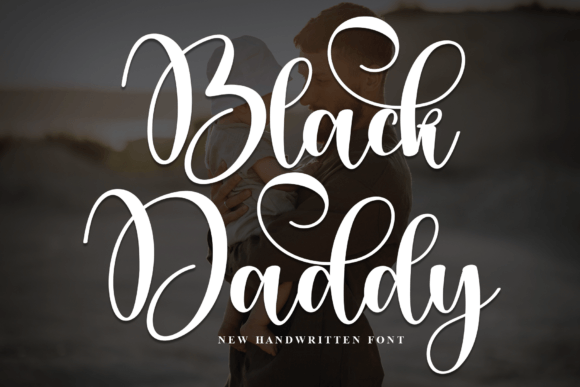
The Ultimate Guide to Black Daddy Font: Elevate Your Designs with Timeless Elegance
I’ll never forget the design project that made me fall in love with the Black Daddy font. I was working on a branding project for a luxury boutique, and I needed a font that exuded sophistication and elegance. After hours of scouring font libraries and testing various options, I stumbled upon Black Daddy. Its unique, handwritten charm instantly captured my attention, and I knew I had found the perfect fit. In this article, I’ll share my experience with Black Daddy, its features, and how to make the most of this stunning font.
An Honest Review of Black Daddy Font
What I Love About Black Daddy ✨
- 💫 Unique and beautiful touch: Every letter has a distinct character that adds a personal touch to your designs.
- ✅ Timeless elegance: Black Daddy’s classic style ensures your designs will remain stylish for years to come.
- 🎨 Versatility: This font is perfect for creating eye-catching logos, branding, quotes, and more.
- 💖 Handwritten charm: Black Daddy’s handwritten feel adds a touch of warmth and personality to your designs.
While Black Daddy is an exceptional font, there are a few things to keep in mind:
- 🤔 Limited availability: Black Daddy might not be as widely available as other fonts, but it’s worth searching for.
- ⚠️ Occasional kerning issues: As with any font, you might encounter kerning issues; be sure to adjust as needed.
The Story Behind Black Daddy Font
Black Daddy was created with the intention of crafting a timeless, elegant font that would add a personal touch to designs. Its unique, handwritten style has made it a favorite among designers and crafters. While the true story behind Black Daddy remains a mystery, its impact on the design community is undeniable.
Q: What type of projects is Black Daddy suitable for?
A: Black Daddy is perfect for creating eye-catching logos, branding, quotes, and more. Its versatility makes it suitable for various design projects.